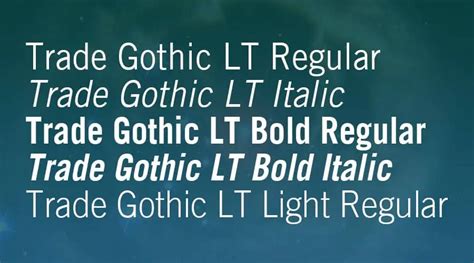
Trade Gothic Font. Last edited august 02, 2014. Web trade gothic® bold extended.
Web trade gothic® bold extended. Web trade gothic | fontshop. The first cuts of trade gothic were designed by jackson burke in 1948. Last edited august 02, 2014.
Last edited august 02, 2014. Web trade gothic® bold extended. Web trade gothic | fontshop. Last edited august 02, 2014. The first cuts of trade gothic were designed by jackson burke in 1948.